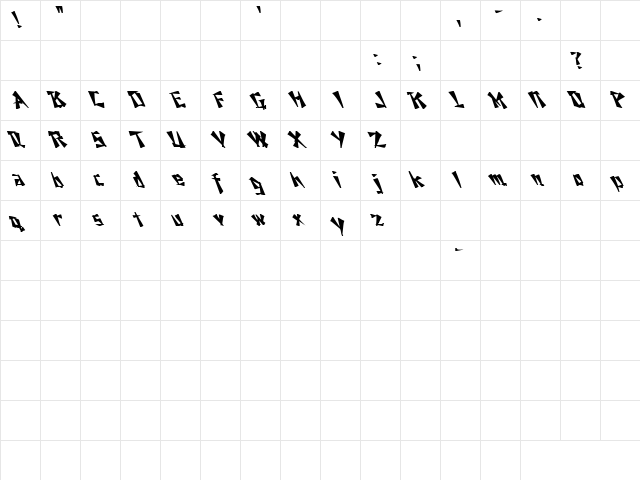
Fox On The Run 7 Bold
Design Context for Fox On The Run 7 Typeface
Fox On The Run 7 is a composed and adaptable typeface that performs quietly and consistently across a wide range of design contexts. The heavy weight commands attention and anchors typographic hierarchies.